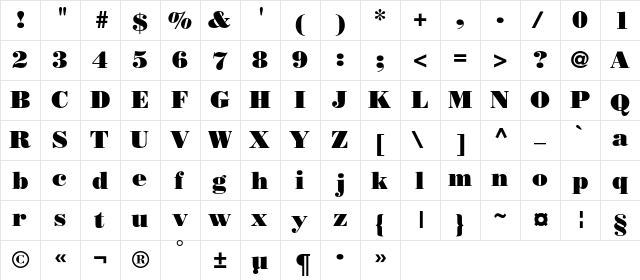
BodoniPosterC Regular
Design Context for BodoniPosterC Typeface
BodoniPosterC offers clean, dependable letterforms without strong stylistic allegiance, making it a practical choice for designers who need flexibility.